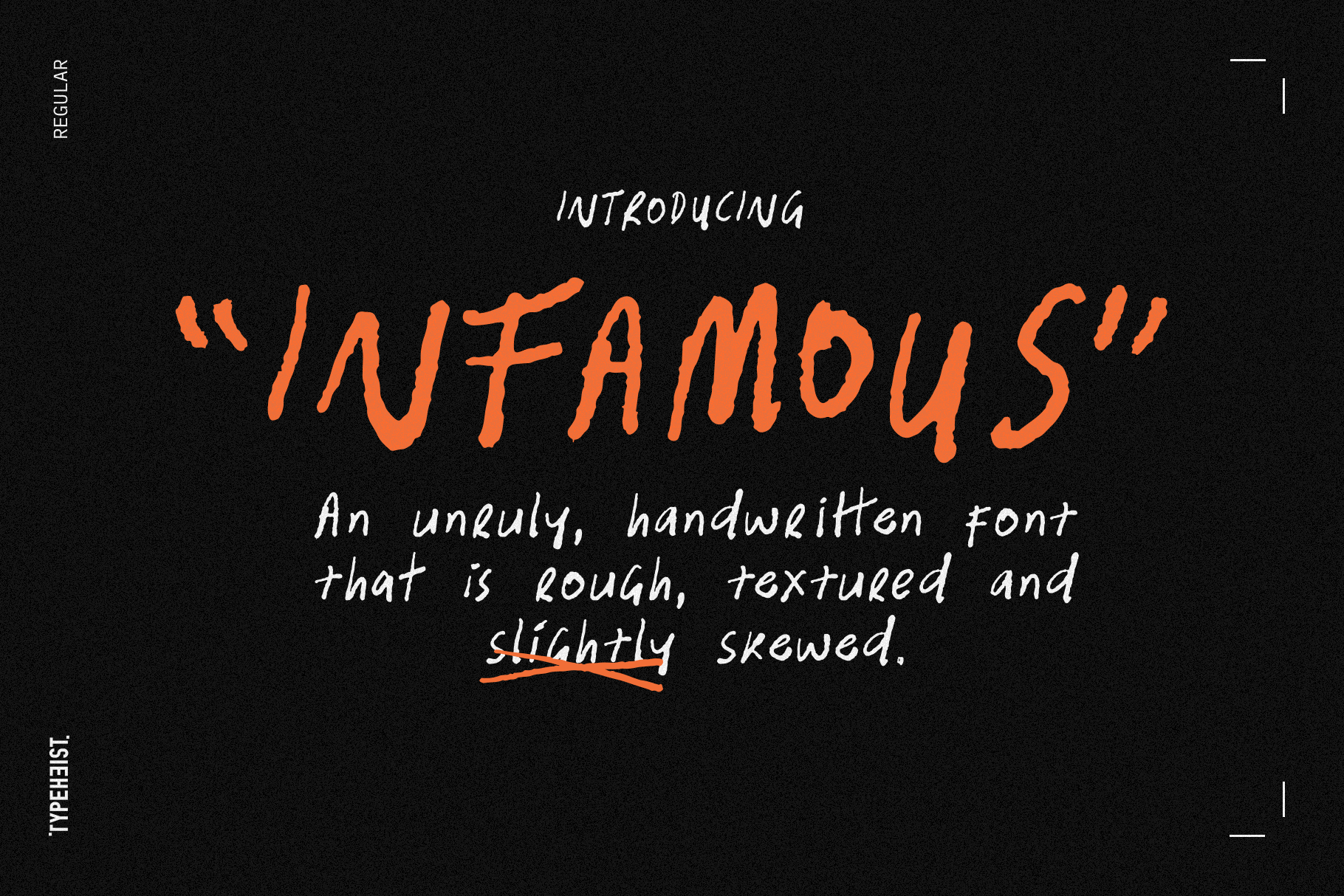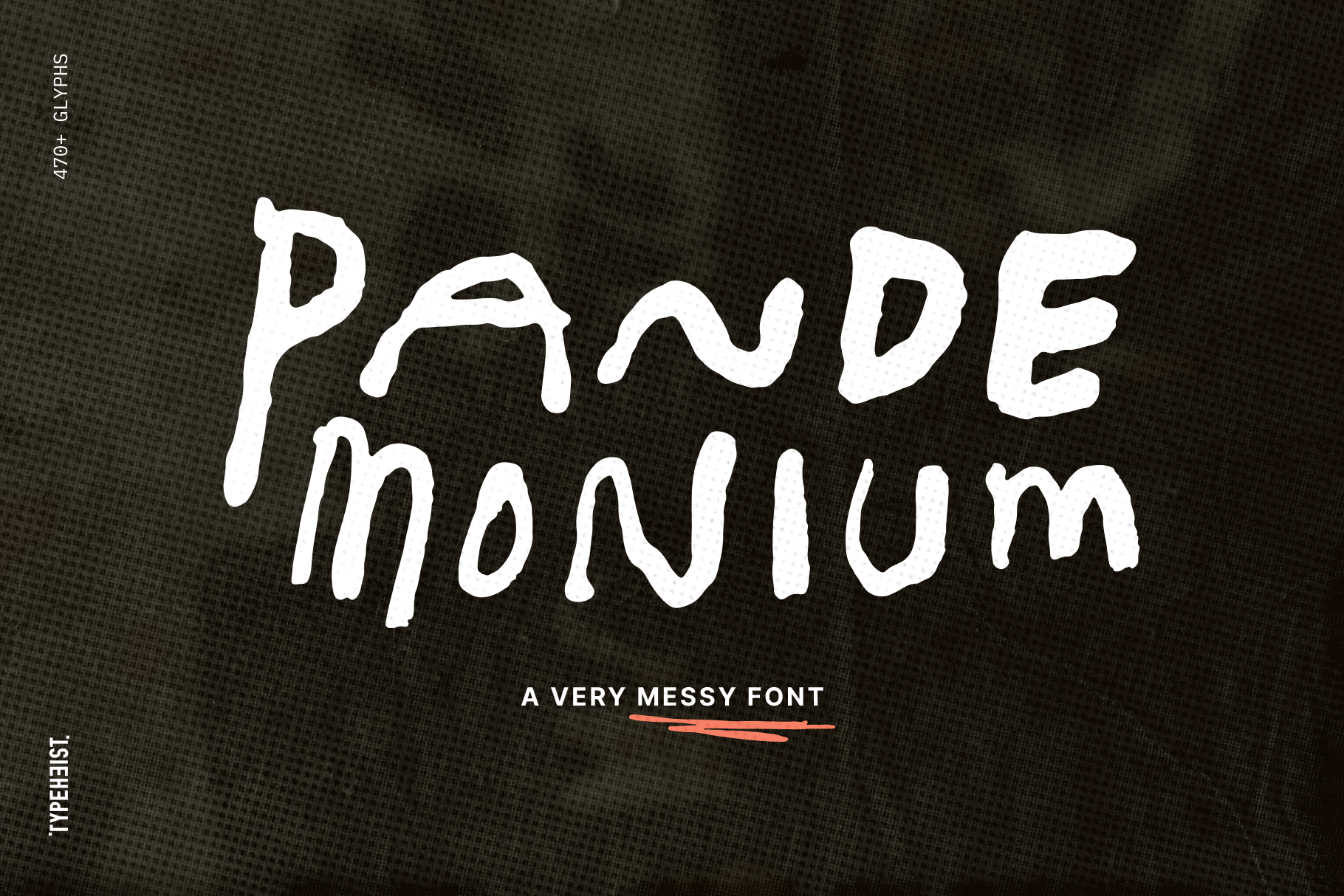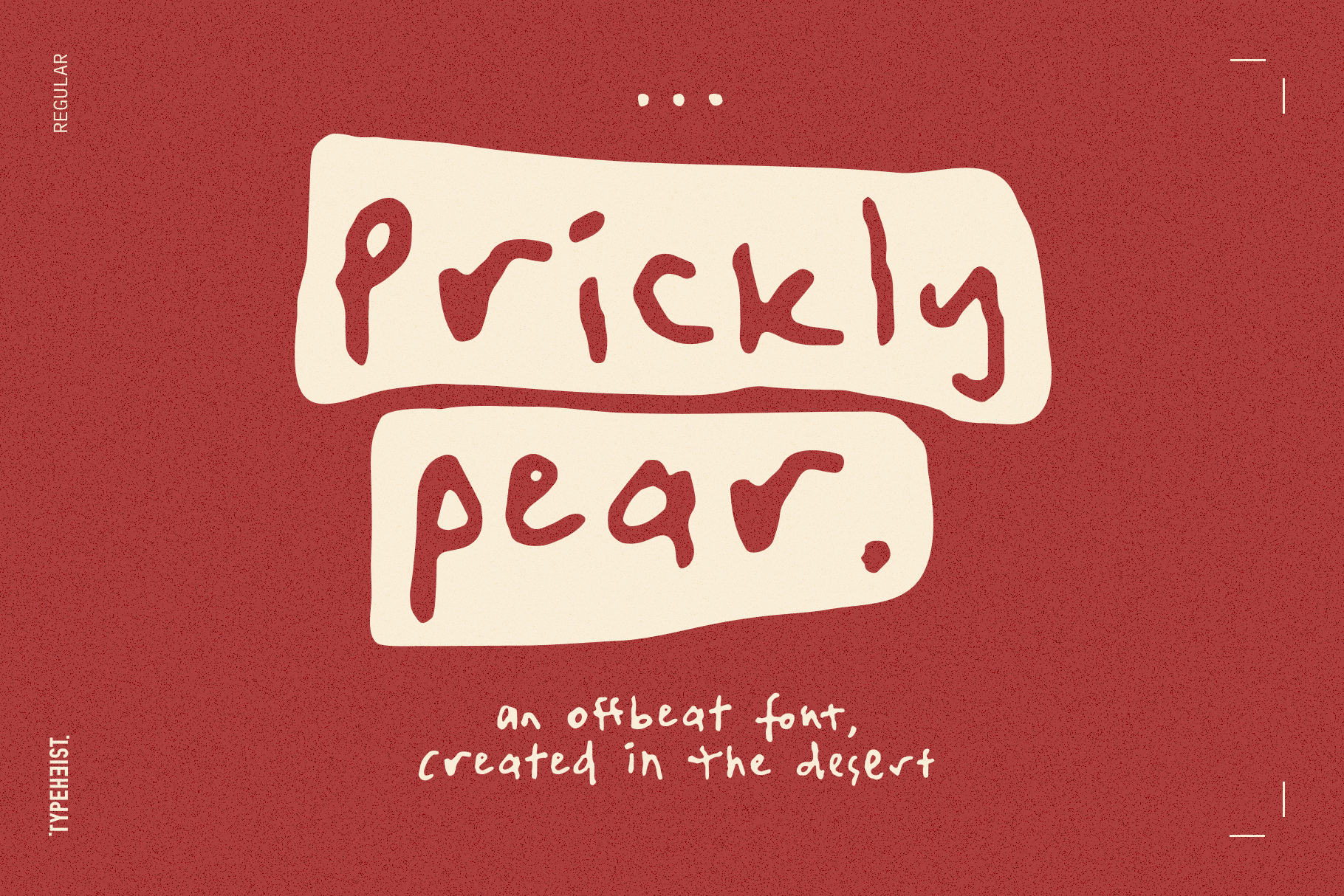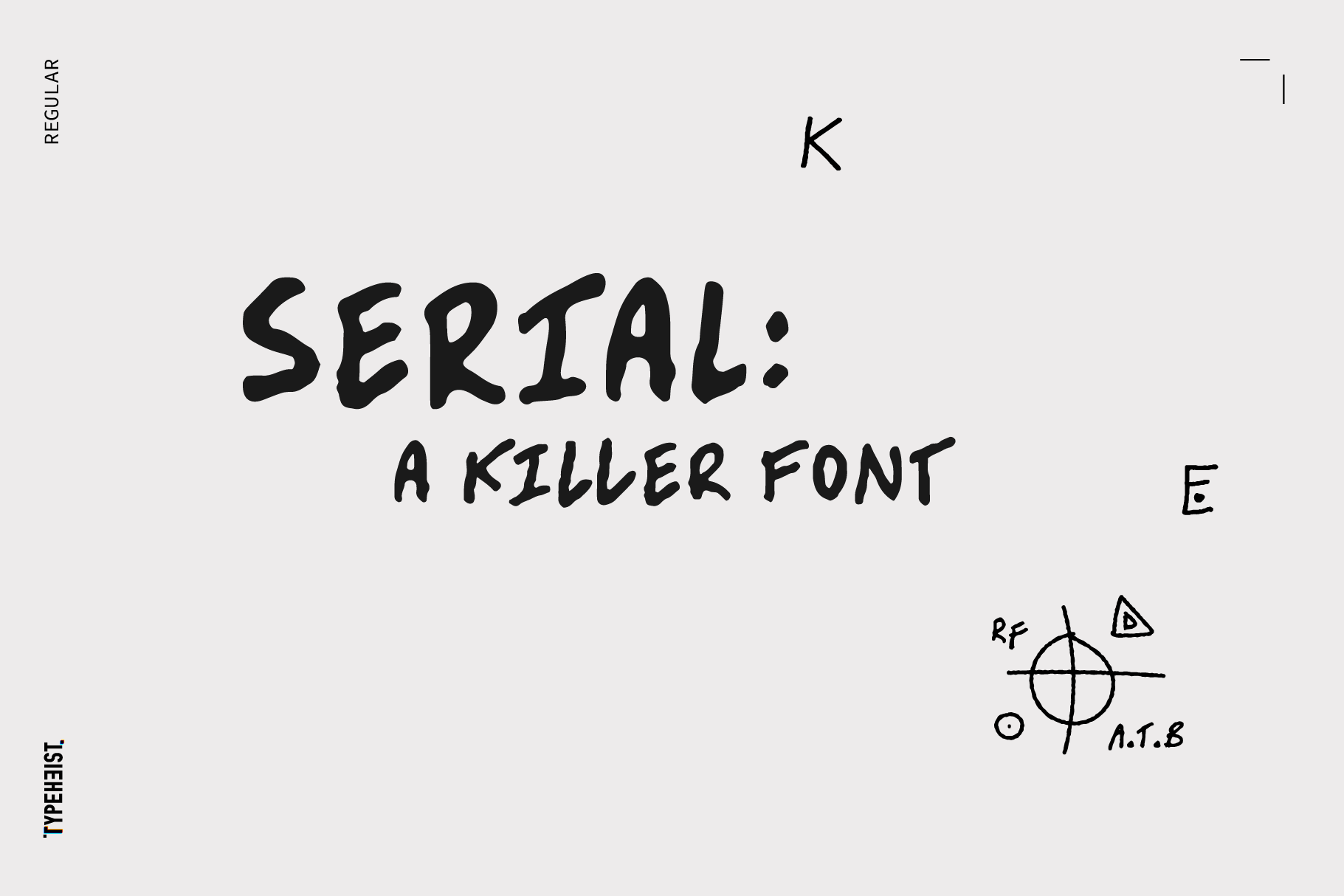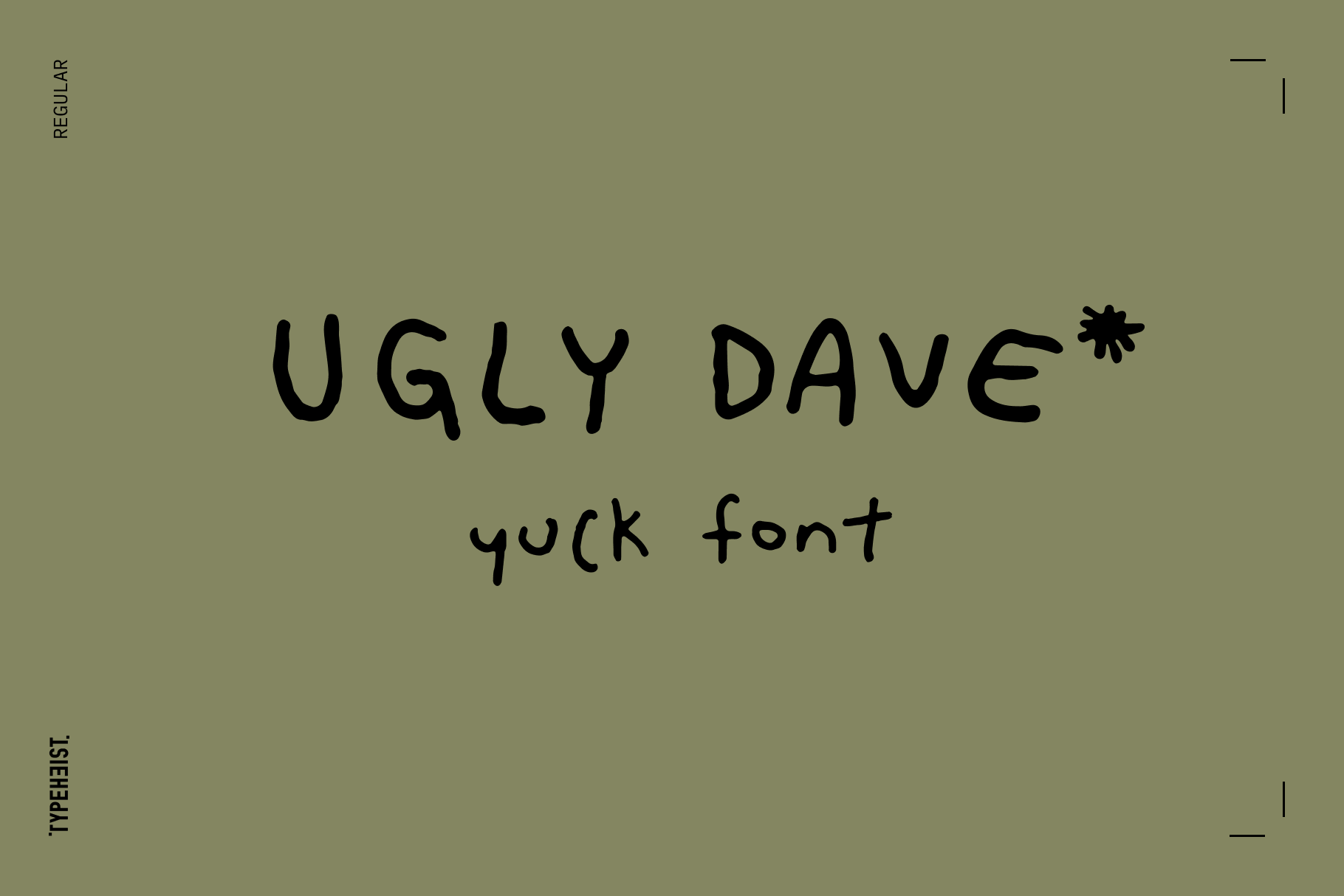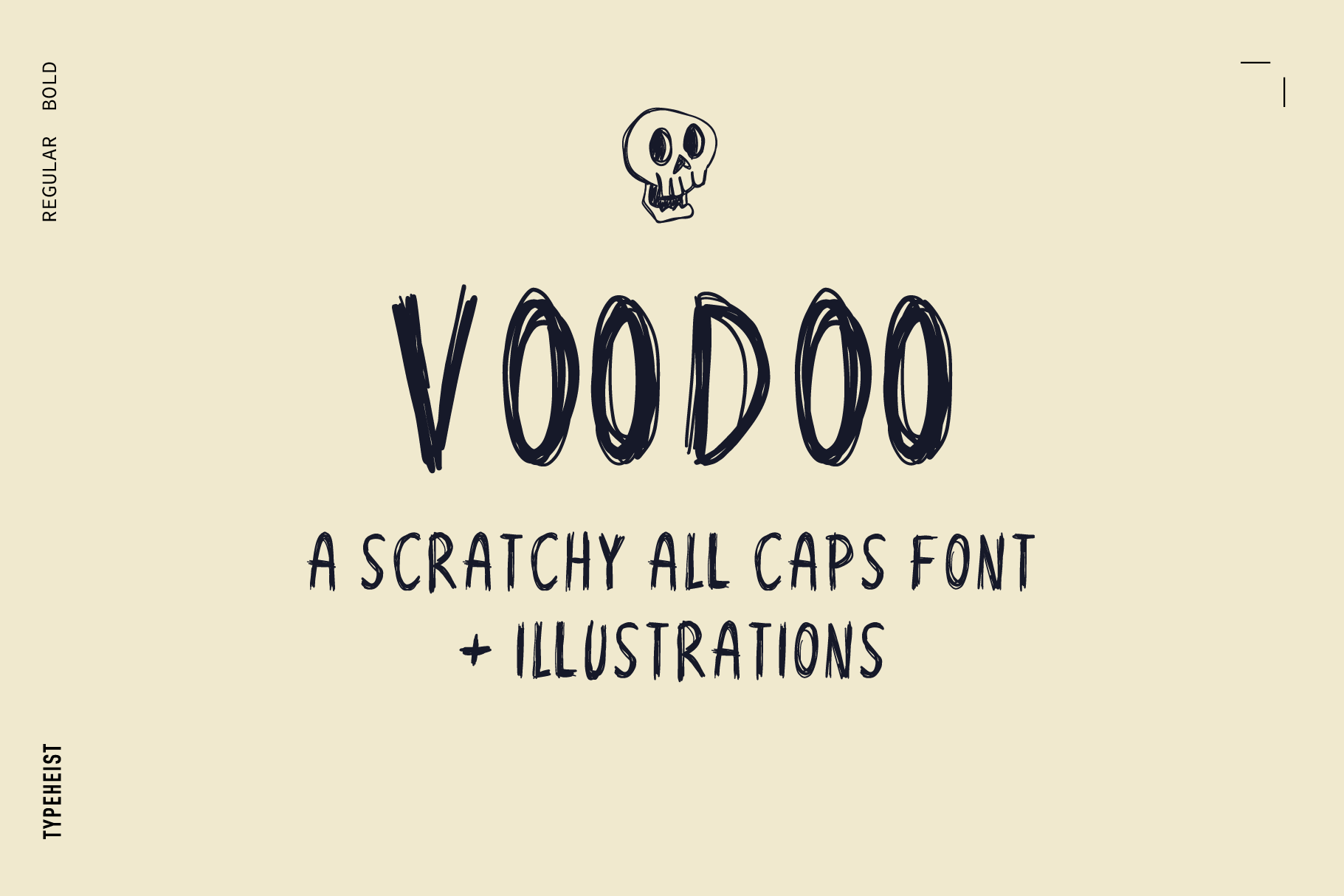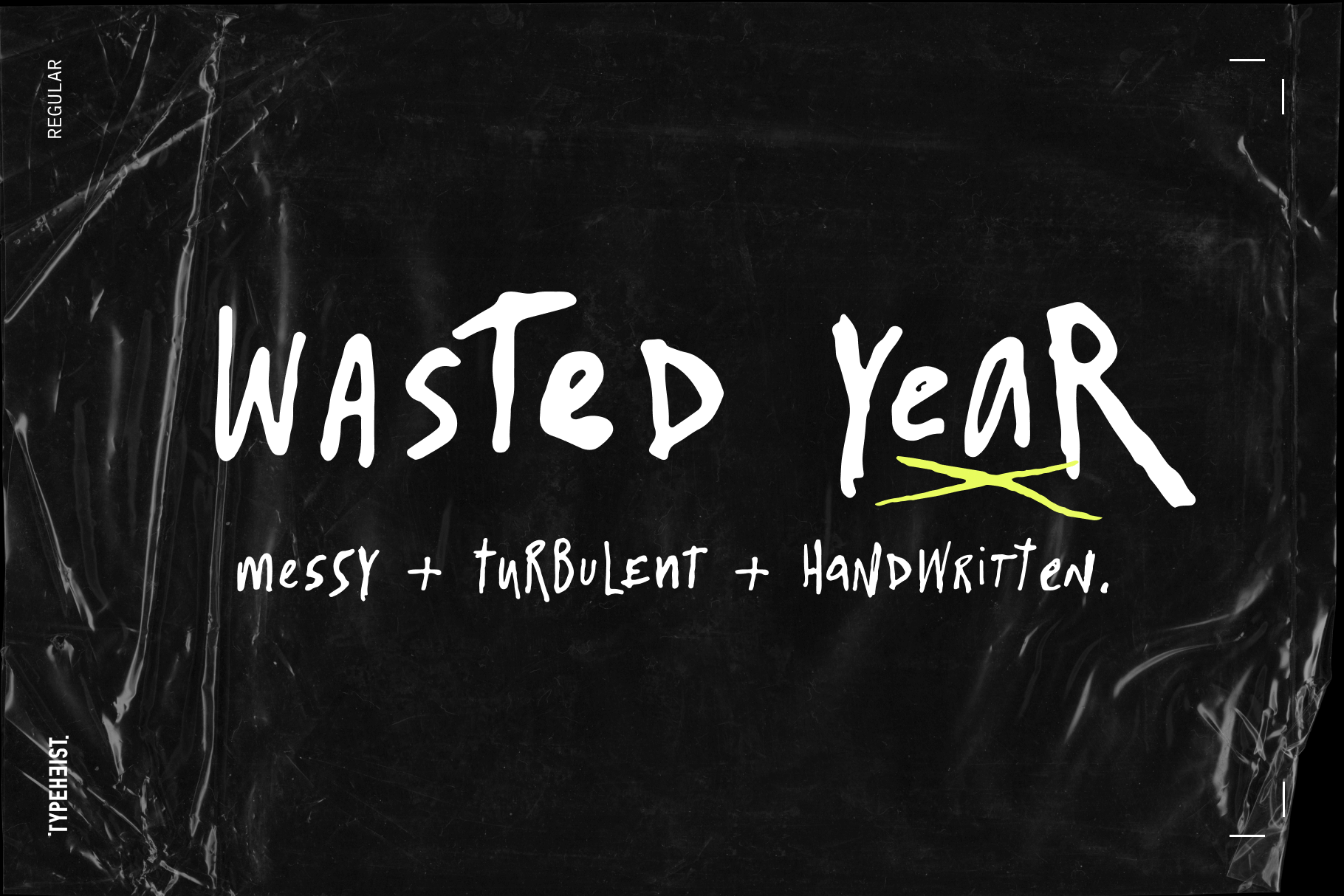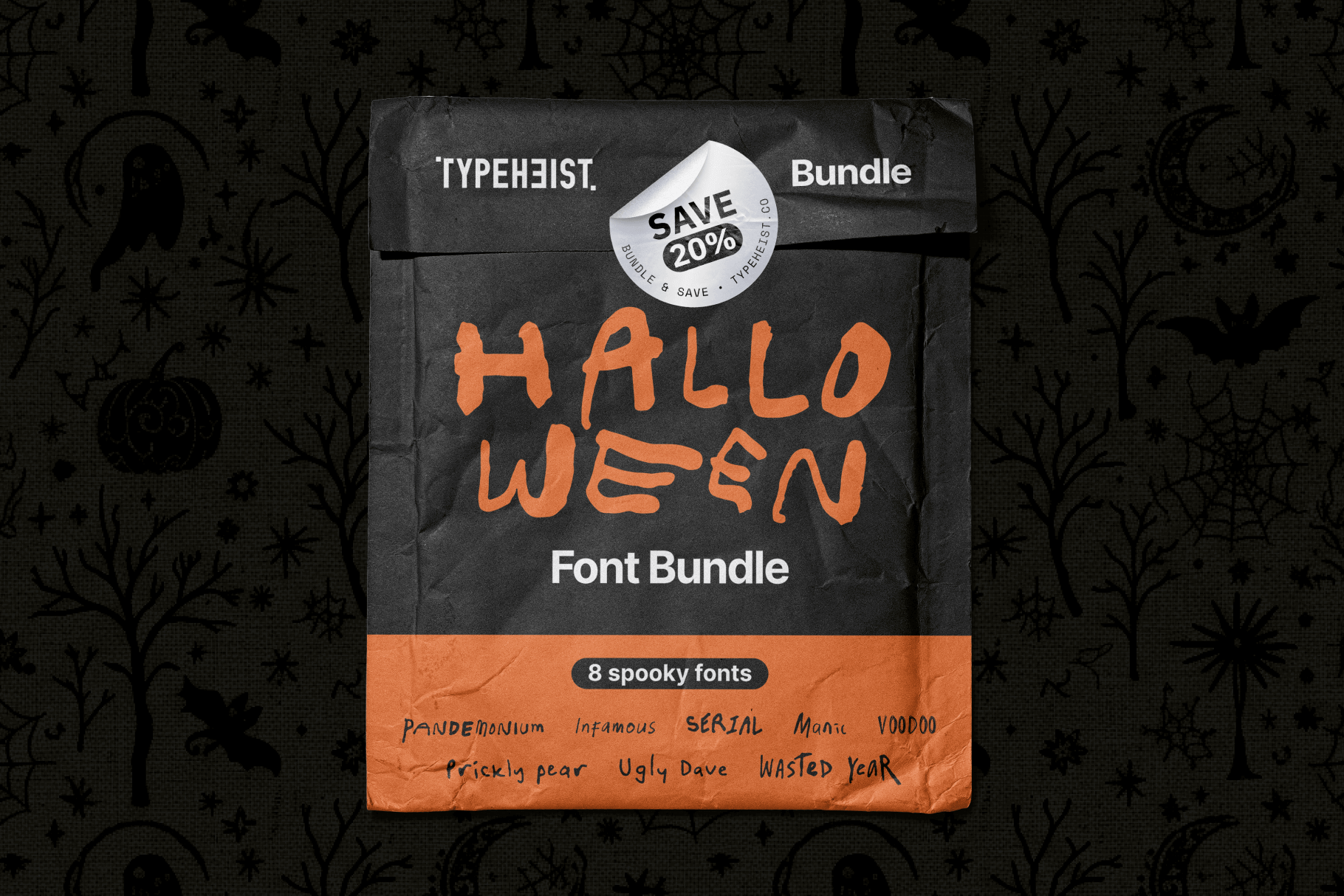
Halloween Font Bundle
Creep it real this Halloween with a bundle full of scribbly, scratchy, ghoulish fonts. Perfect for posters, invites, trick-or-treat bags, party decor, social posts and anything that needs a little haunted flair.
These aren’t your average “spooky” fonts. They’re hand-drawn, full of character, and delightfully weird. Ranging from eerie to playful, moody to monstrous.
- Unique handcrafted fonts with a range of glyphs and ligatures
A spooky collection of 8 handwritten fonts.
Whether you’re crafting creepy graphics, eerie invites or bone-chilling merch, this bundle gives you a full cauldron of Halloween typography to work with.